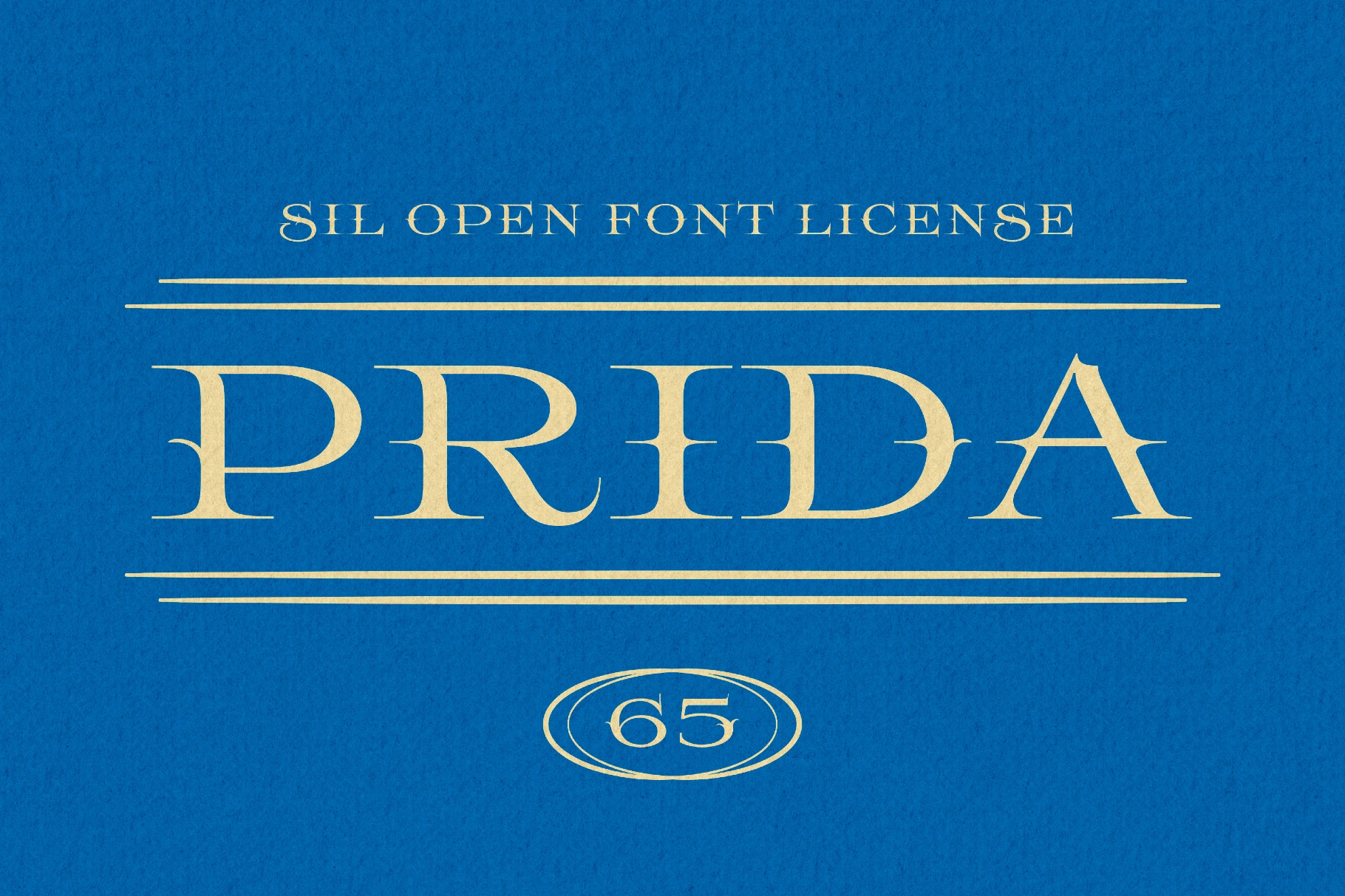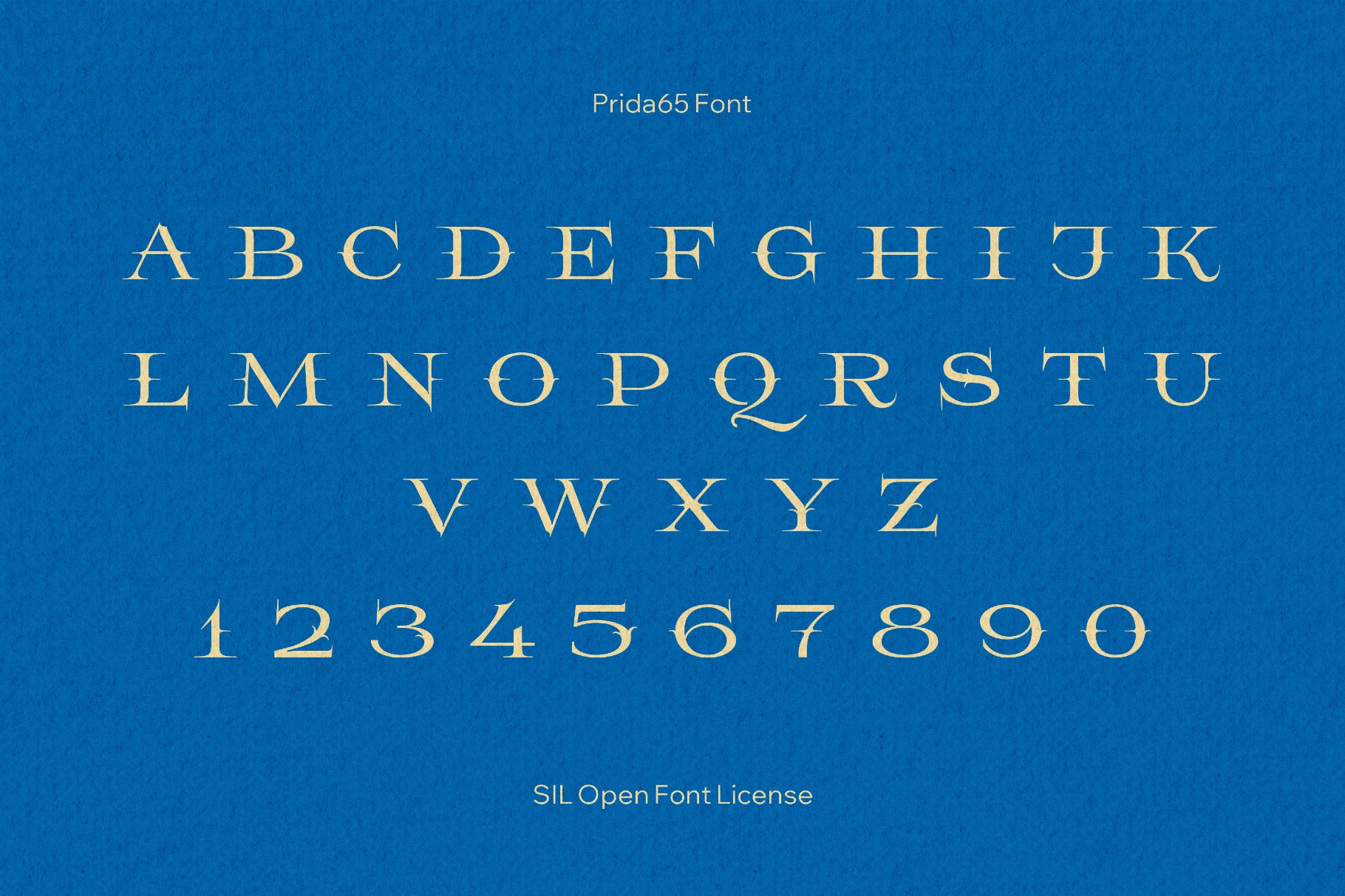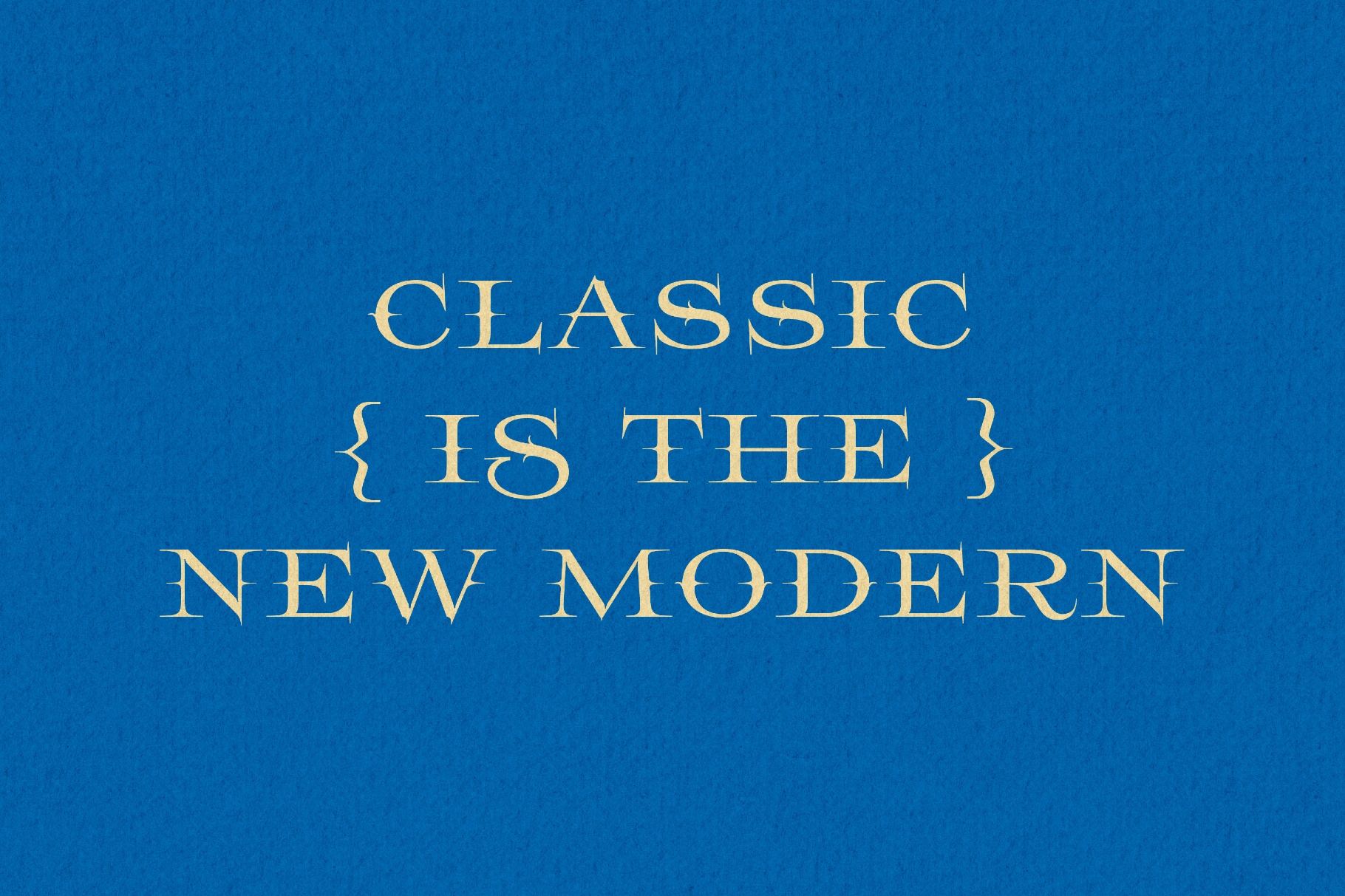
Prida65 Font
Prida65 has the crisp elegance of mid-century book typography, reminiscent of transitional serifs used in classic European publishing and gallery catalogues. Tall, thorny caps are a good choice for editorial layouts, book covers, craft-beverage labels, branding for cultural institutions, event and rodeo posters, packaging copy, invitations, and website typography.
• Only uppercase letters A–Z.
• Numbers, punctuation, and symbols.
• A set of extra symbols and ligatures.
• Extended Latin character set with international characters.